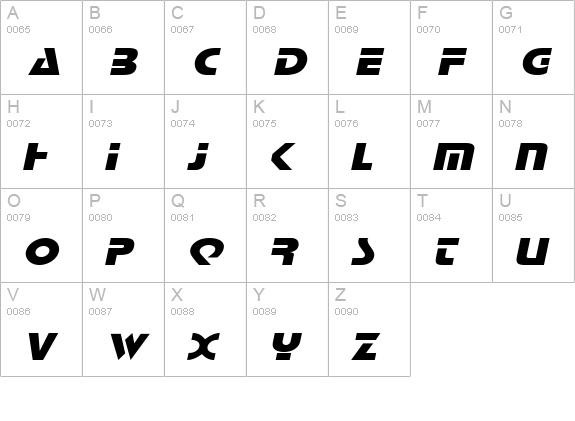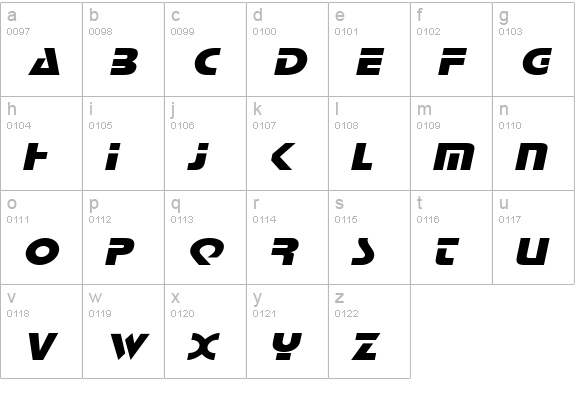
Scottsdale Wide Italic Font Details
Scottsdale Wide Italic is a distinctive, extended-width, italic variant in the Scottsdale typeface family \xE2\x80\x94 well suited to design and typography projects.
Introducing the alluring and sophisticated Scottsdale Wide Italic font, a true gem in the world of typography. This exquisite font effortlessly combines elegance with a touch of playfulness, making it perfect for a wide range of design projects. Scottsdale Wide Italic boasts a unique and captivating italicized style, adding a sense of movement and fluidity to your text. Its wide proportions create a visually appealing layout, allowing your words to command attention and leave a lasting impression on your audience. With its generous and open letterforms, Scottsdale Wide Italic offers excellent legibility, ensuring that your message is effortlessly conveyed. Whether you're designing a logo, branding materials, invitations, or any other creative endeavor, this font will bring a touch of class and sophistication to your project. And the best part? Scottsdale Wide Italic is available for free! You can easily download this remarkable font at FontsMarket.com, where it is freely offered to enhance your creative endeavors. Don't miss out on the opportunity to elevate your designs with this elegant typeface. So, whether you're a professional designer or a creative enthusiast, Scottsdale Wide Italic is a must-have addition to your font collection. Its versatility, charm, and free availability make it an invaluable asset for any project, ensuring that your designs stand out from the crowd and leave a lasting impression.